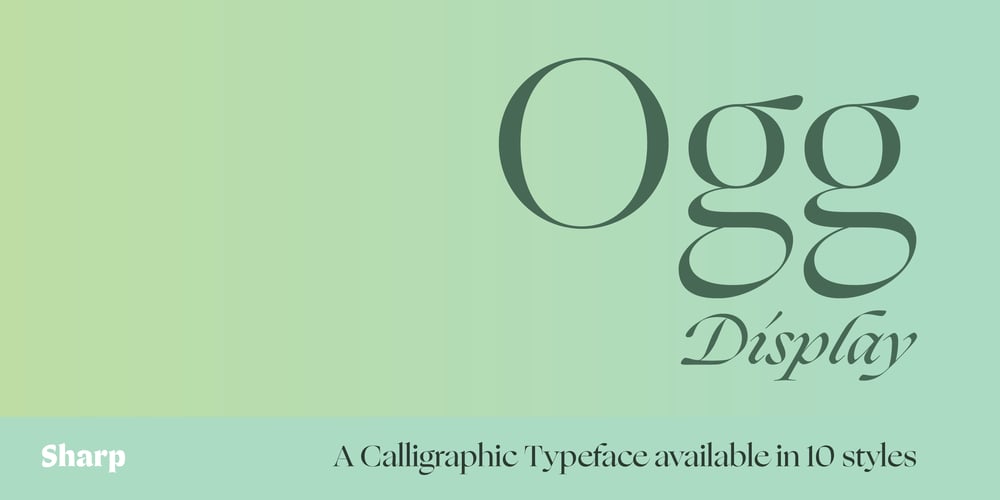
Ogg Display Font Family was designed by Lucas Sharp, Connor Davenport, Wei Huang and published by Monotype. Ogg Display contains 10 styles and family package options. Inspired by the hand lettering of 20th century book designer and calligrapher Oscar Ogg, Ogg captures the unique mix of calligraphic and typographic form he achieved through his use of hand carved pen nibs, brushes, and white-out. Signature moves found throughout Ogg’s calligraphic works were explored, exaggerated, and refined in the high contrast design space of Ogg. The original lettering samples are a combination of calligraphic stroke, contour drawing, and white-out (reduction). This combination of calligraphic and constructed forms became the perfect jumping off point for typographic exploration.